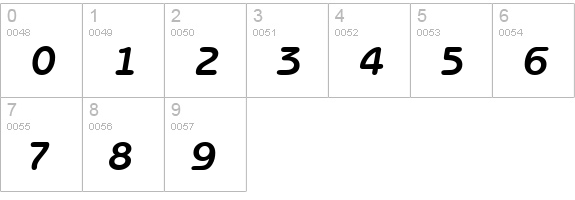
B691-Sans-BoldItalic is a modern and stylish font that exudes confidence and sophistication. With its bold and italic design, this font is perfect for making a statement in your designs. Whether you are creating a logo, poster, or website, B691-Sans-BoldItalic will add a touch of elegance and flair. What's even better is that B691-Sans-BoldItalic is available for free download at FontsMarket.com. You can easily access this versatile font and use it in your projects without any cost. Don't miss out on the opportunity to enhance your designs with the bold and italic charm of B691-Sans-BoldItalic. Download it now and elevate your creations to the next level!